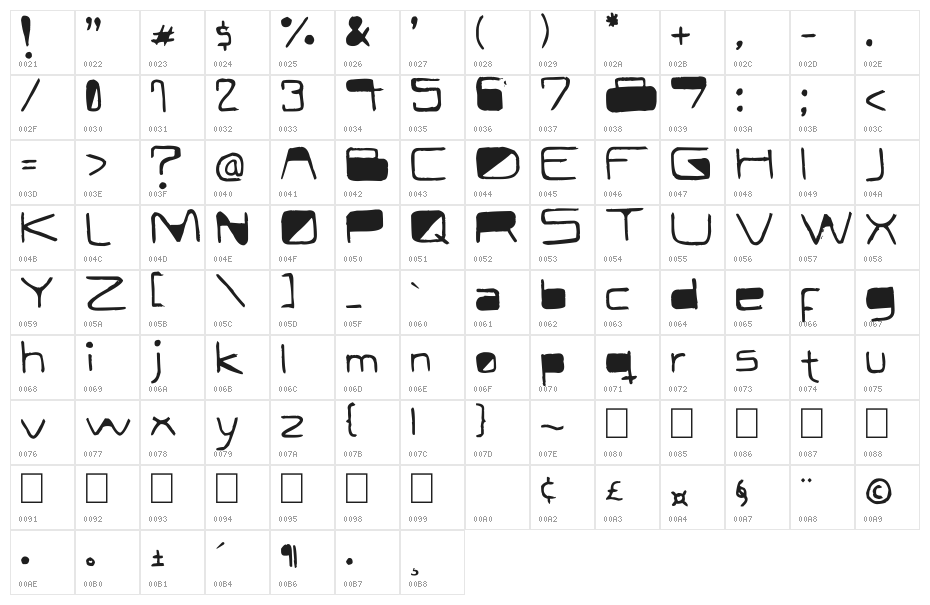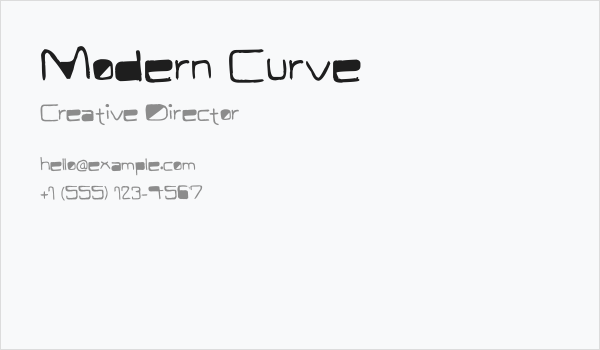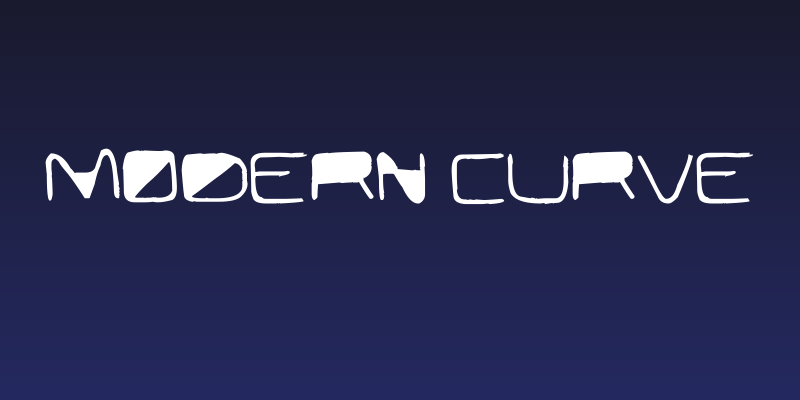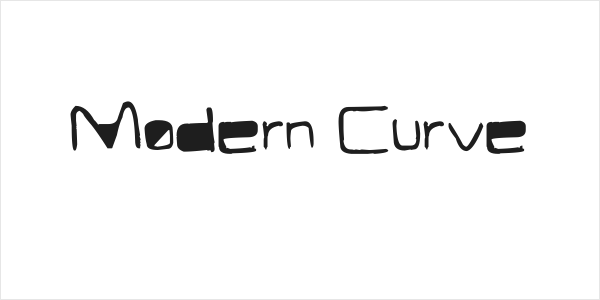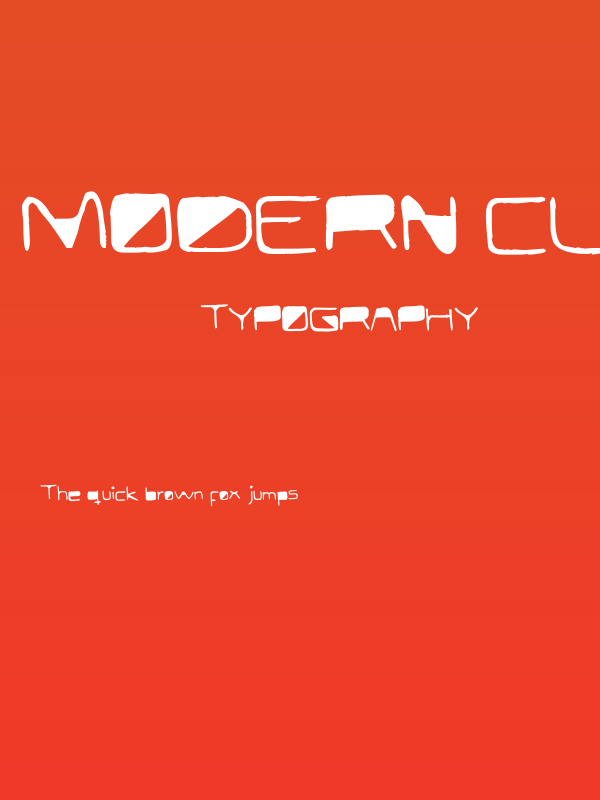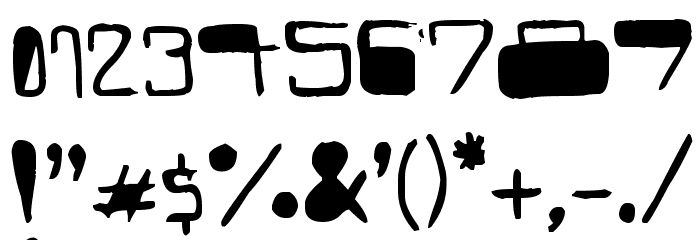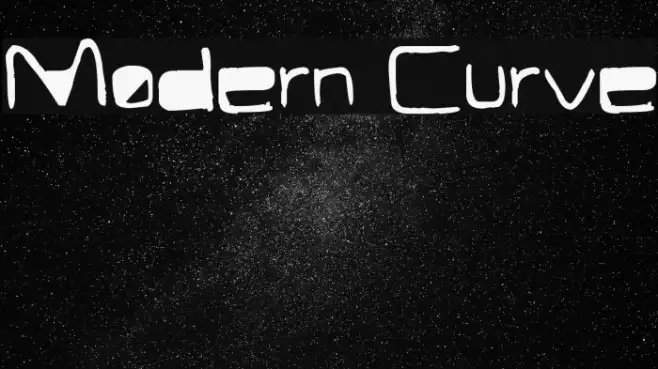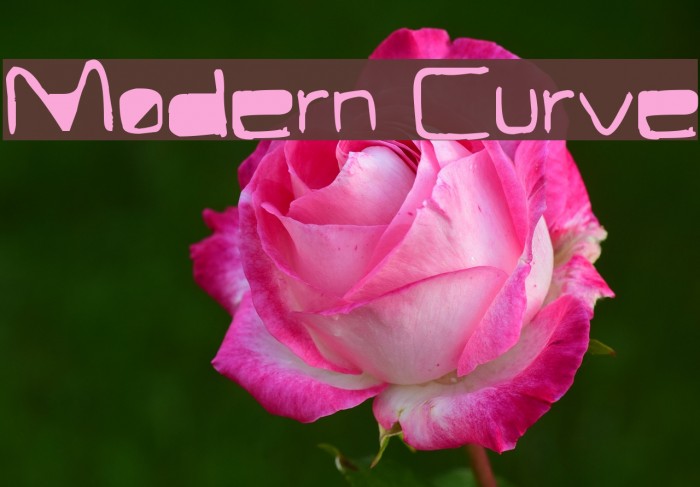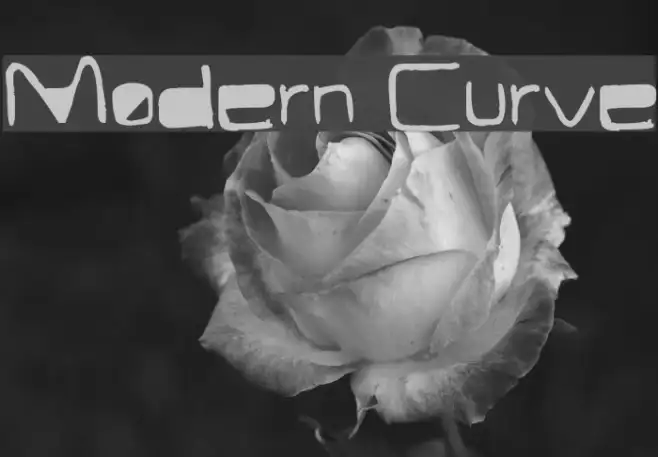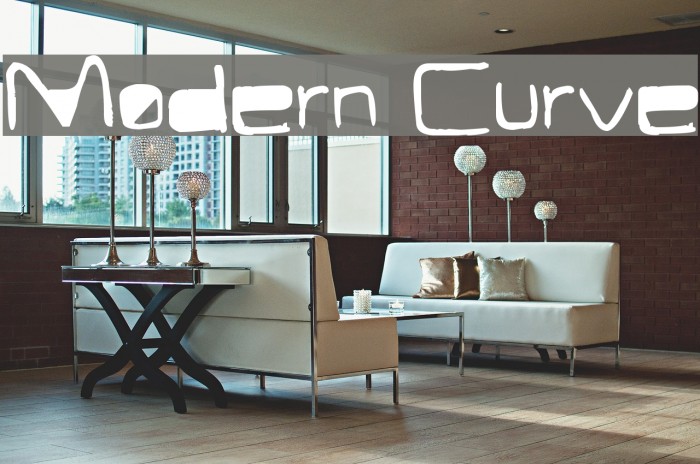
Modern Curve Font
Modern Curve Description
This font features a unique blend of modern and artistic elements, characterized by its bold, irregular strokes and playful curves. The uppercase letters exhibit a strong presence with their thick, block-like forms, while the lowercase letters maintain a more fluid and organic appearance. The numbers and special characters follow the same bold style, adding a sense of cohesion across the entire set. The font's design is both eye-catching and unconventional, making it suitable for creative projects that require a distinctive and memorable typeface.
| Proposed Projects | Ideal for creative branding, poster design, album covers, and artistic projects. |